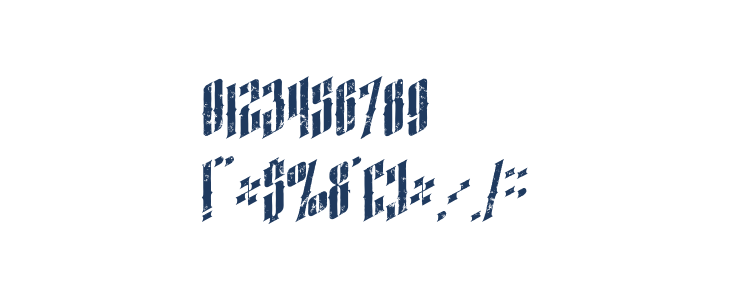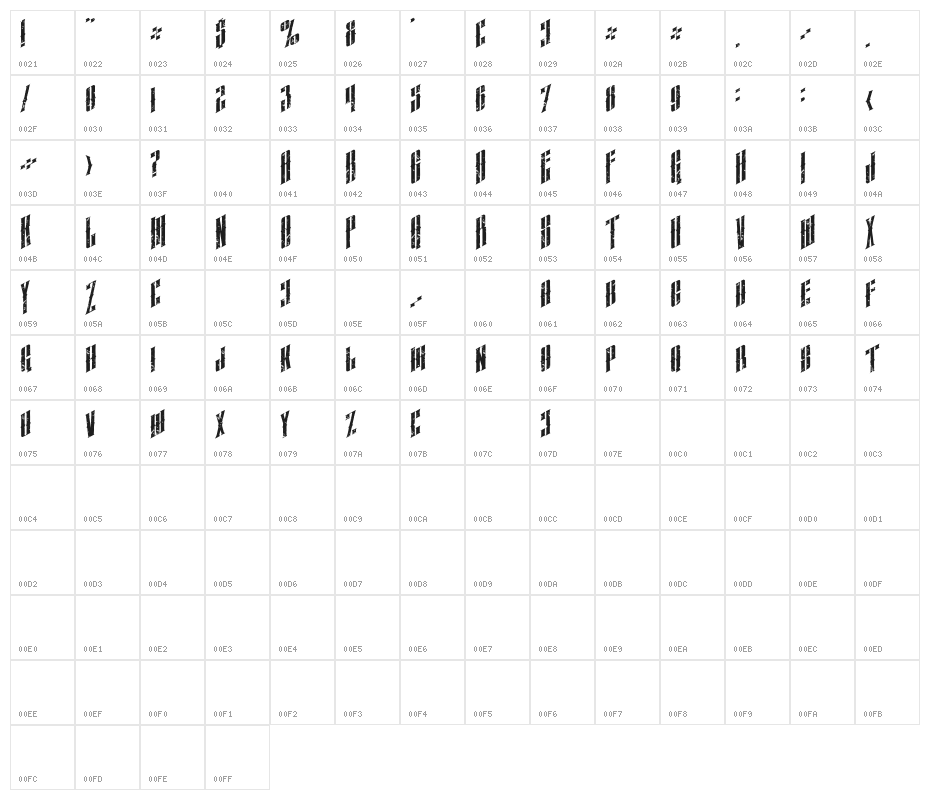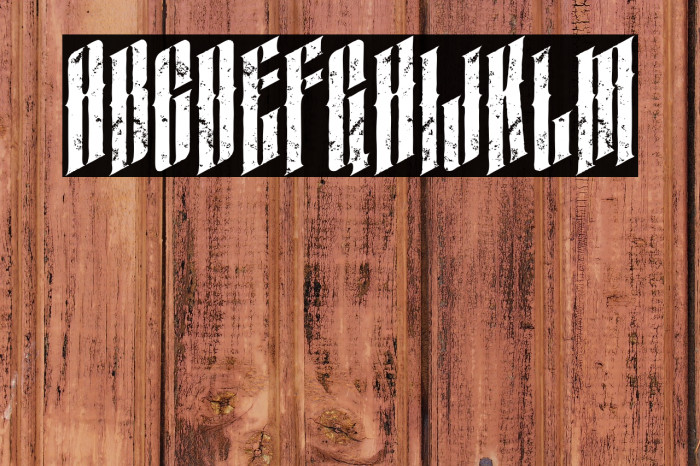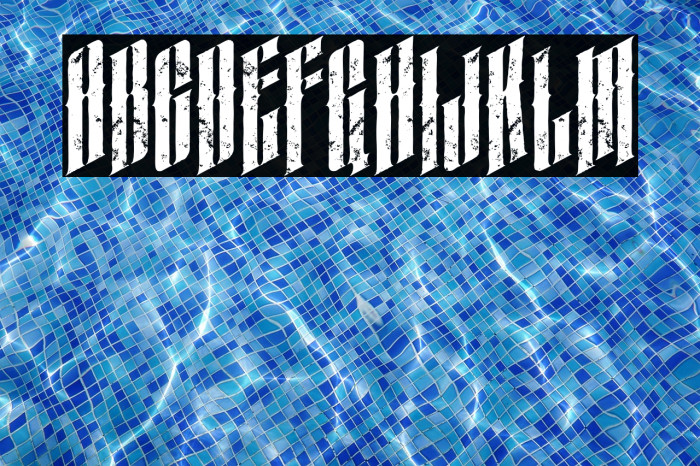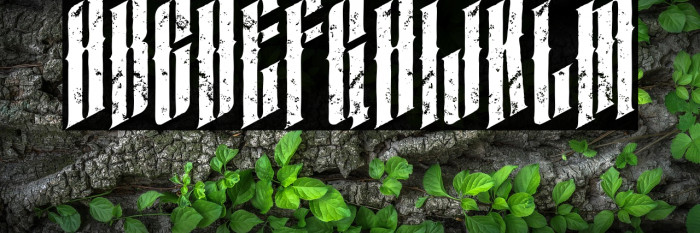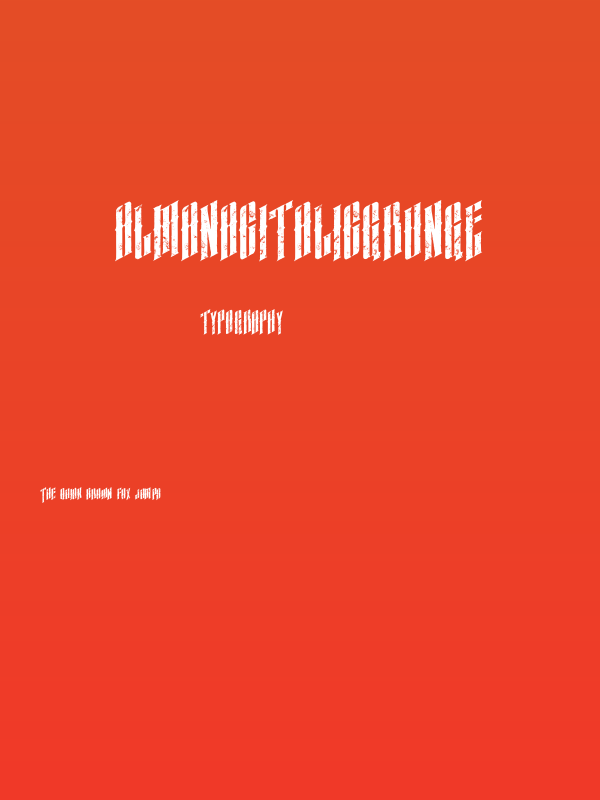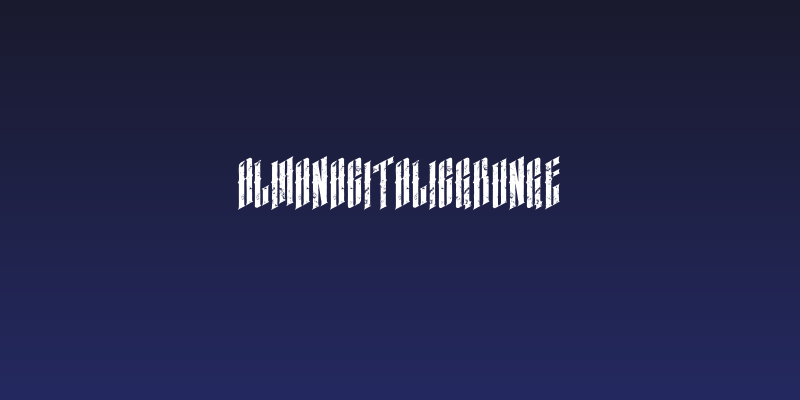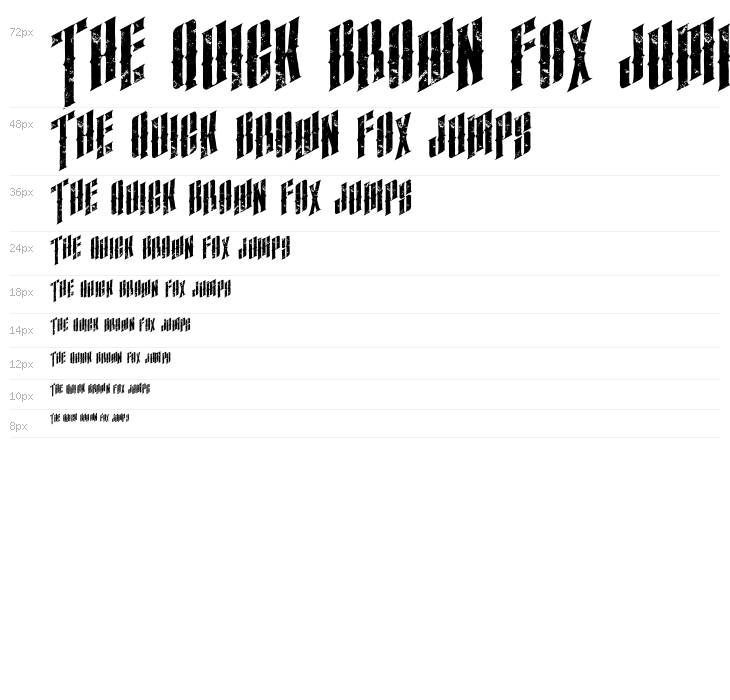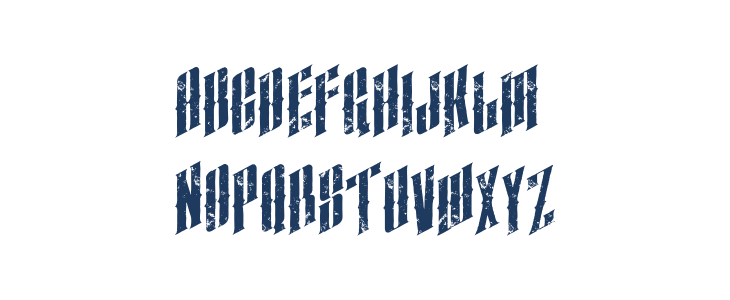
almanacitalicgrunge Font
almanacitalicgrunge Description
This font features a bold, italicized style with a distinct grunge texture, giving it a rugged and edgy appearance. The characters are heavily distressed, with irregular edges and a worn-out look that adds a sense of depth and character. The uppercase and lowercase letters maintain a consistent slant, enhancing the italic effect. The numerals and special characters follow the same distressed pattern, ensuring uniformity across the font. Its bold weight and condensed width make it stand out, while the high contrast between the thick and thin strokes adds to its dramatic flair. This font is ideal for projects that require a strong, impactful visual statement.
| Overall Style | Grunge, Decorative |
| Proposed Projects | Perfect for album covers, posters, branding for edgy products, or any design needing a bold, gritty aesthetic. |